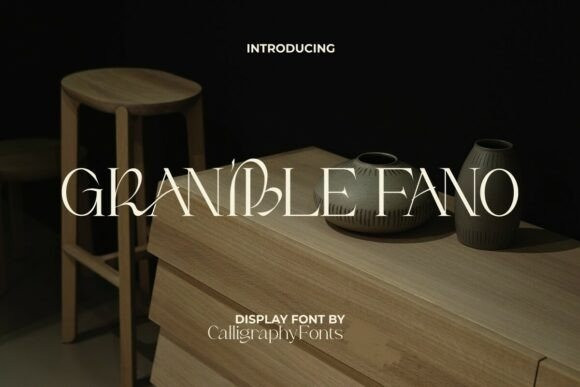
Granible Fano Font
Granible Fano Font is an elegant and stylish display serif font. It has a luxurious look that can be used for your design needs.
The font is also PUA-encoded, ensuring effortless access to all glyphs, swashes, and alternate characters to help you customize your creations with ease.